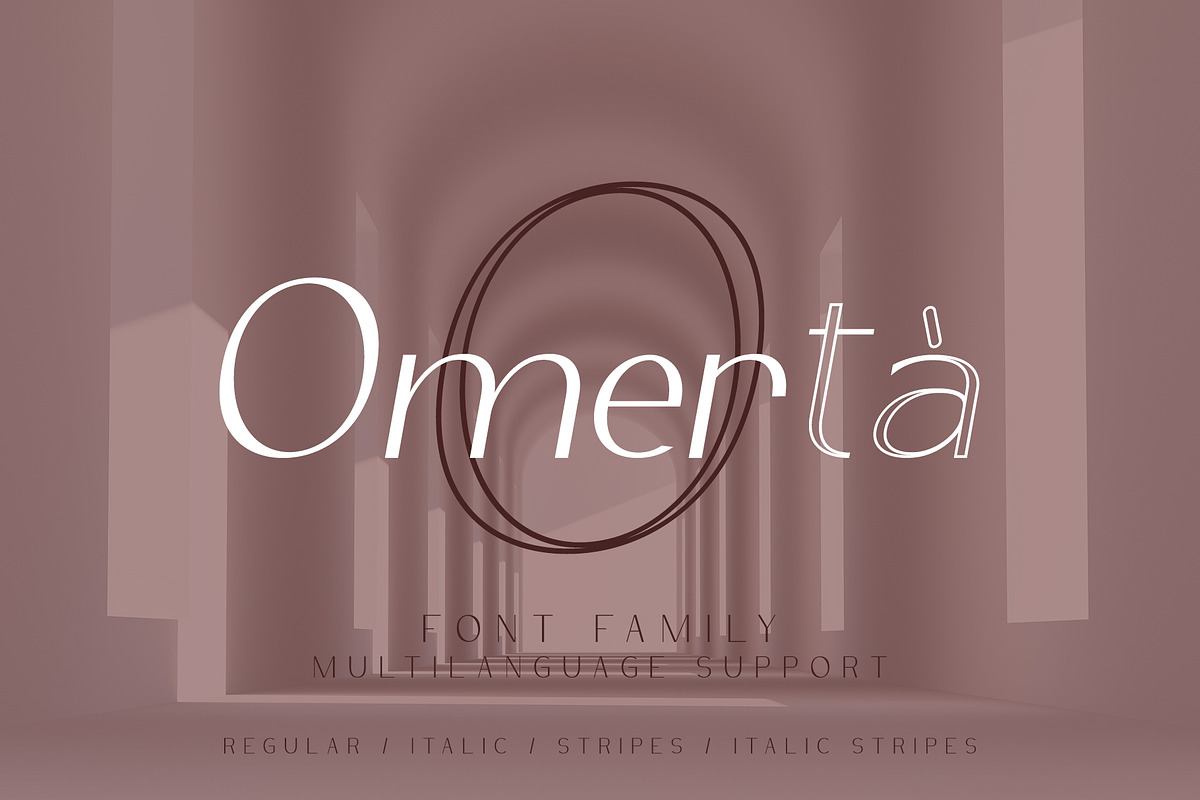
Omerta Font Family Free Download is a bold and versatile typeface family designed to make a strong impact across various design projects. With its sleek lines and modern appeal, this font family offers multiple styles that work seamlessly together, making it perfect for branding, editorial designs, packaging, and marketing materials. Whether you need a clean sans-serif for a minimalist logo or a more robust variant for a headline, Omerta has you covered. The Omerta Font Family Free Download allows you to experiment with different weights and styles in personal or concept projects before investing in a commercial license. Elevate your design projects with this sophisticated and dynamic font family that combines both style and functionality.